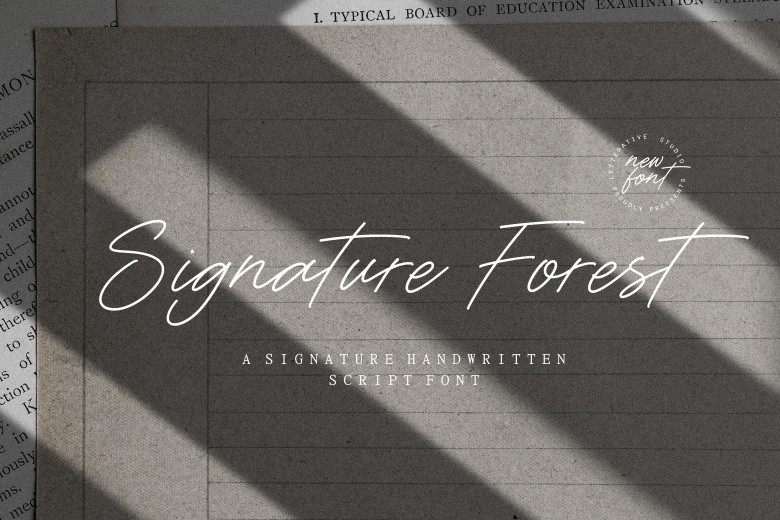
Signature Forest Font
Signature Forest is a modern, monoline signature script font. Whether it’s for crafts, digital designs, presentations, or anything in between, this font could easily become your new favorite, no matter what the occasion!
Signature Forest Handwritten Font